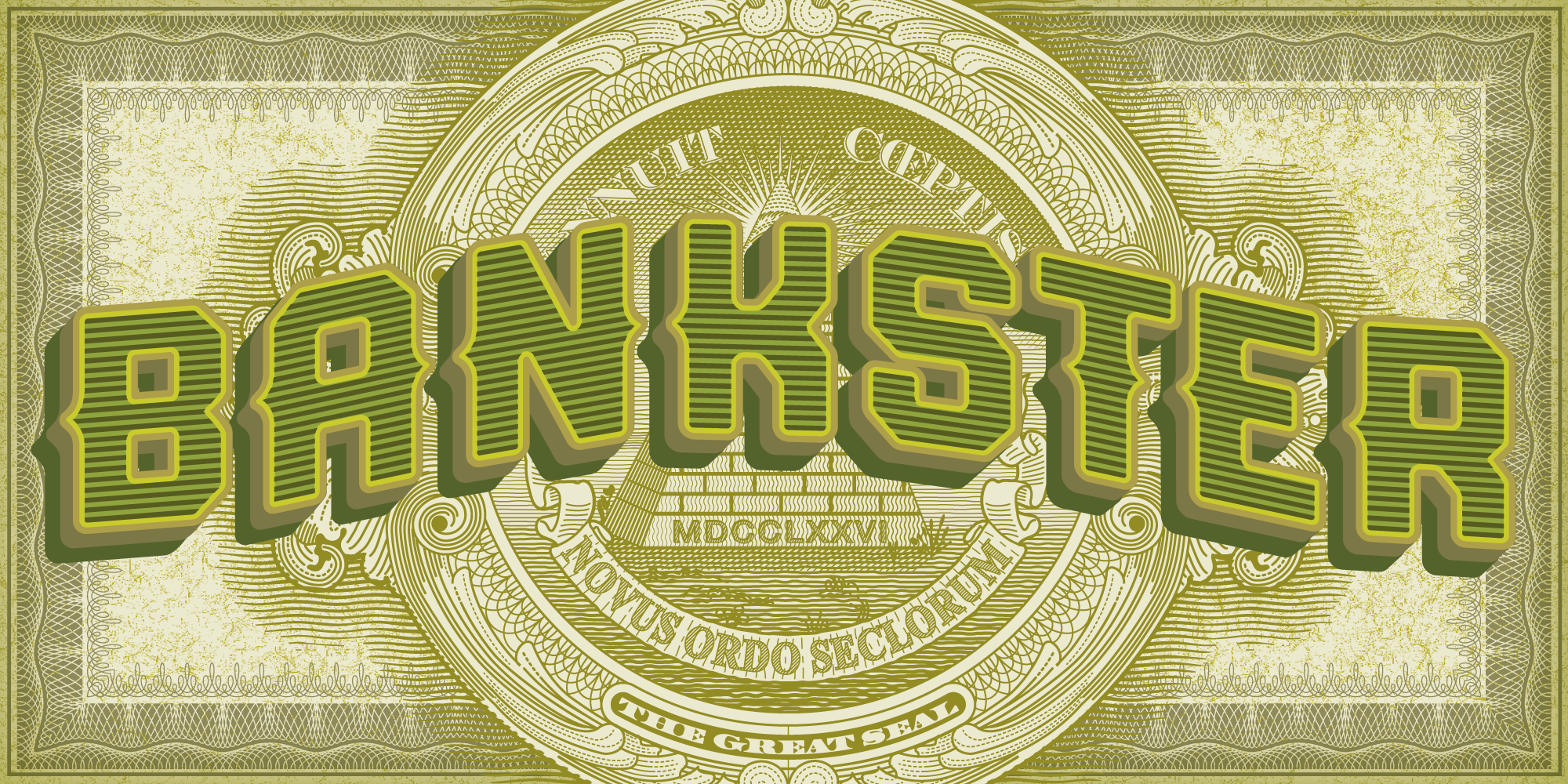
This authoritative font is perfect for financial institutions, investment firms, banking services, corporate finance presentations, wealth management branding, economic publications, business consulting materials, and professional financial communications. Its commanding character makes it ideal for projects requiring financial credibility and institutional trust.
Bankster Font is exciting because it embodies the power and precision of financial expertise with letterforms that convey authority, stability, and sophisticated monetary intelligence. The font features strong geometric construction, confident proportions, and professional details that reflect the strategic thinking and calculated decision-making essential in financial markets. Its authoritative personality instantly communicates competence, trustworthiness, and the disciplined approach required for successful wealth management.
The Bankster Font family typically includes multiple professional weights and corporate variations, along with financial symbols, monetary ornaments, and business decorative elements. Many versions feature alternate characters with varying authority levels and special glyphs that enhance the financial atmosphere and institutional credibility.
Whether you're developing financial service brands, investment platforms, or corporate consulting firms, Bankster Font Free Download provides authentic financial authority with contemporary functionality. This typeface transforms standard communications into powerful statements that resonate with investors, business leaders, and financial professionals who demand excellence and proven results. Its distinctive character adds immediate financial credibility while celebrating the strategic intelligence of Bankster Font Free Download and the essential role of skilled financial expertise in building wealth, securing futures, and navigating the complex world of modern economic opportunity.